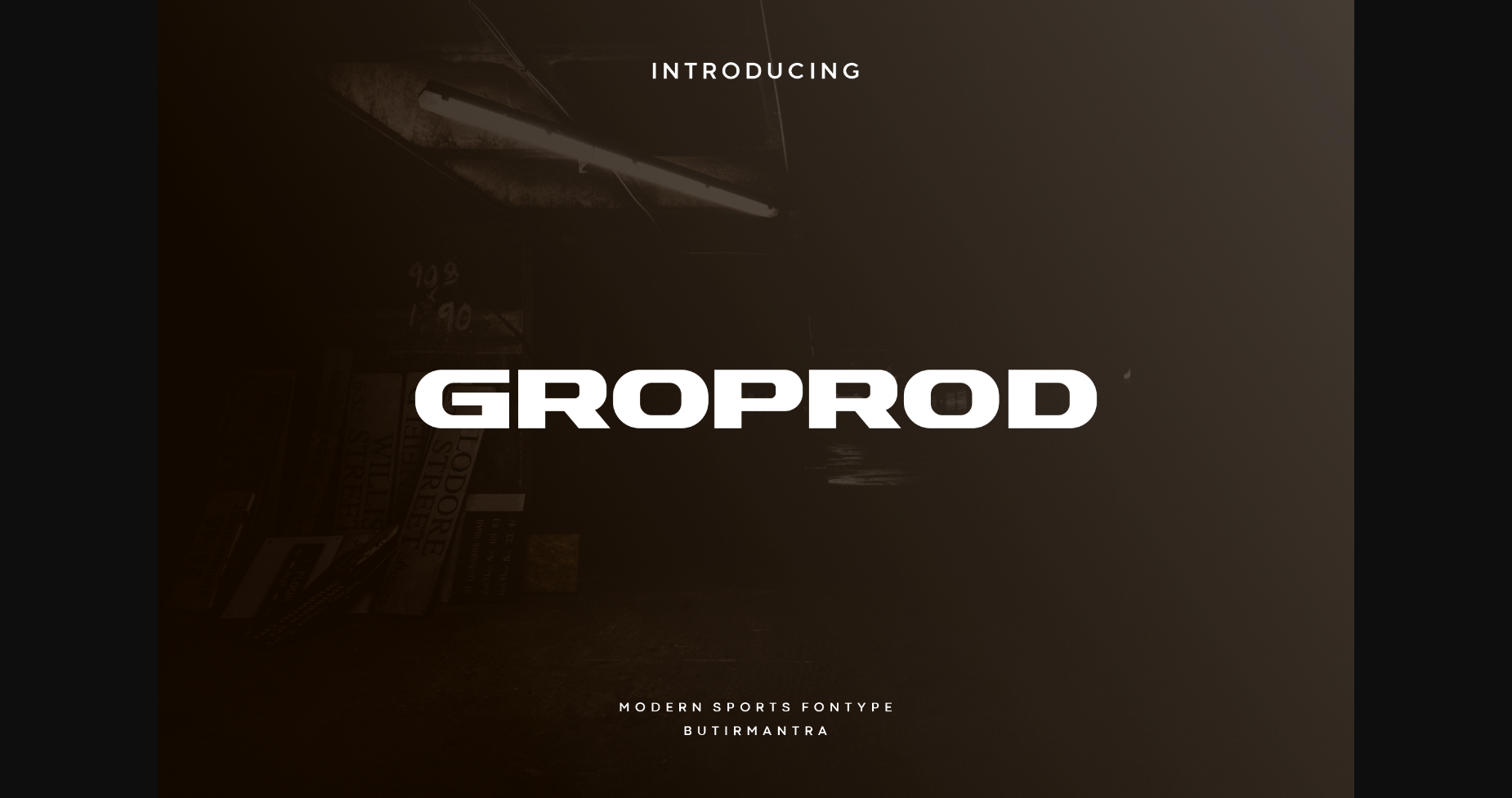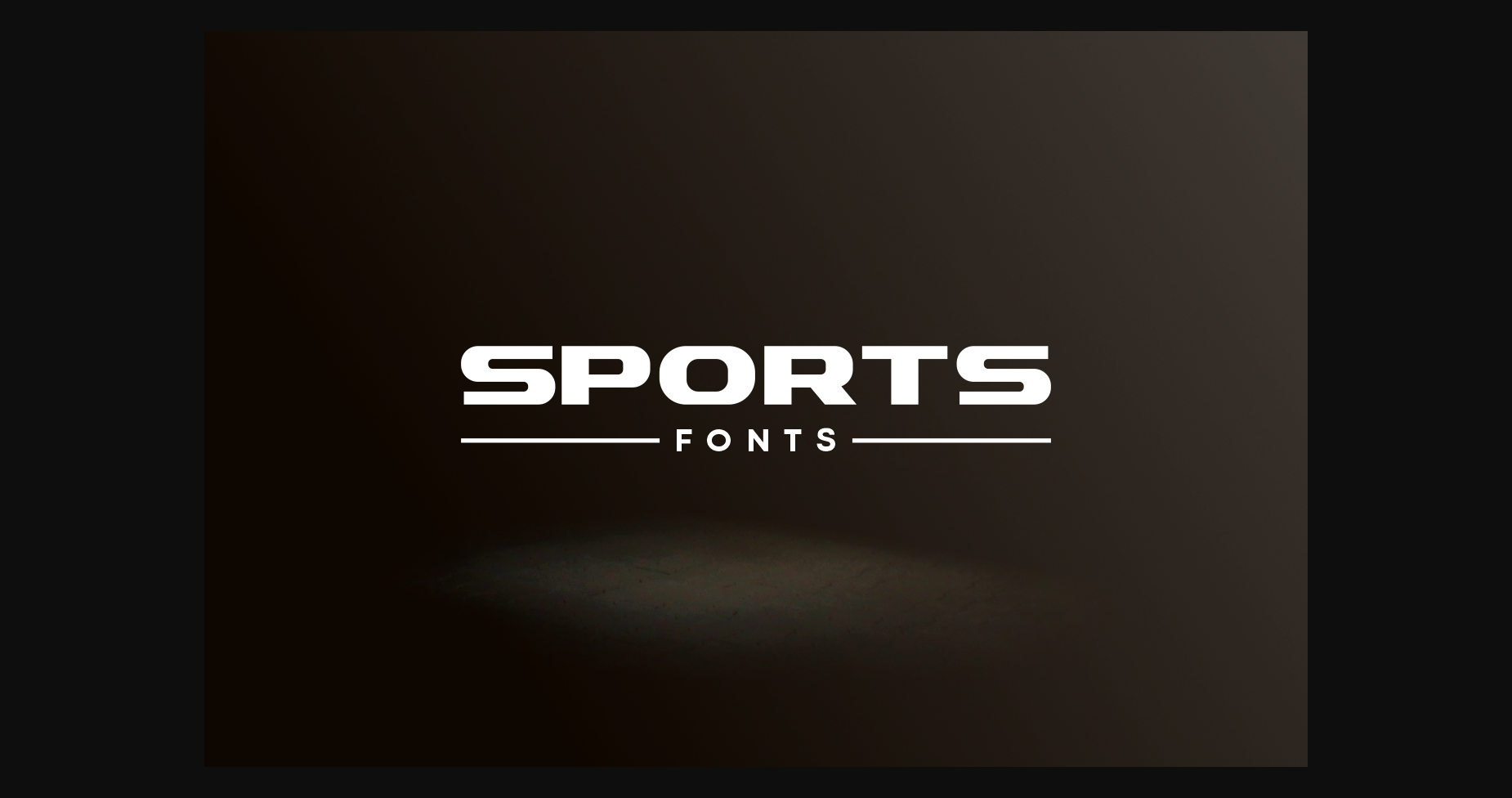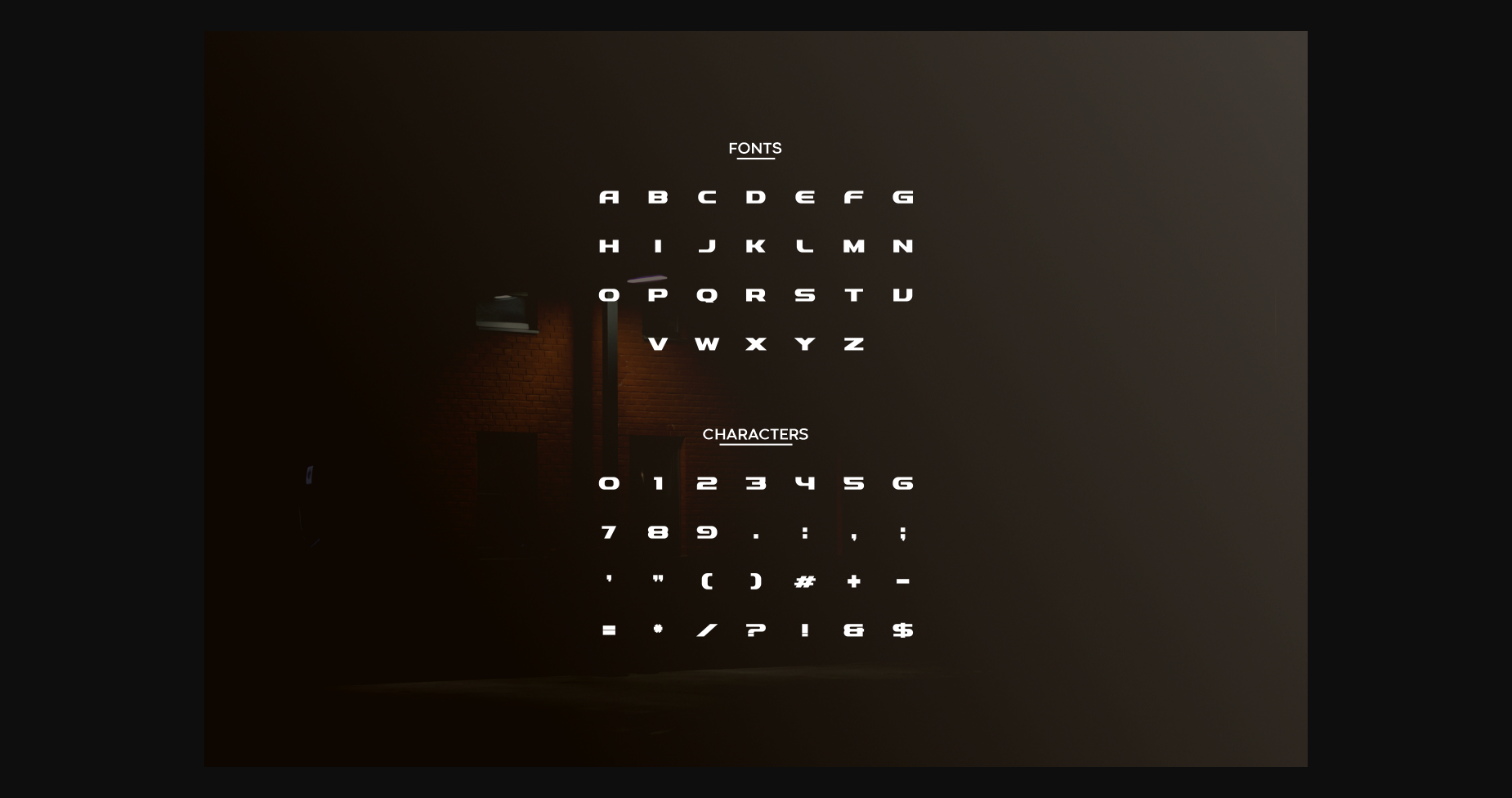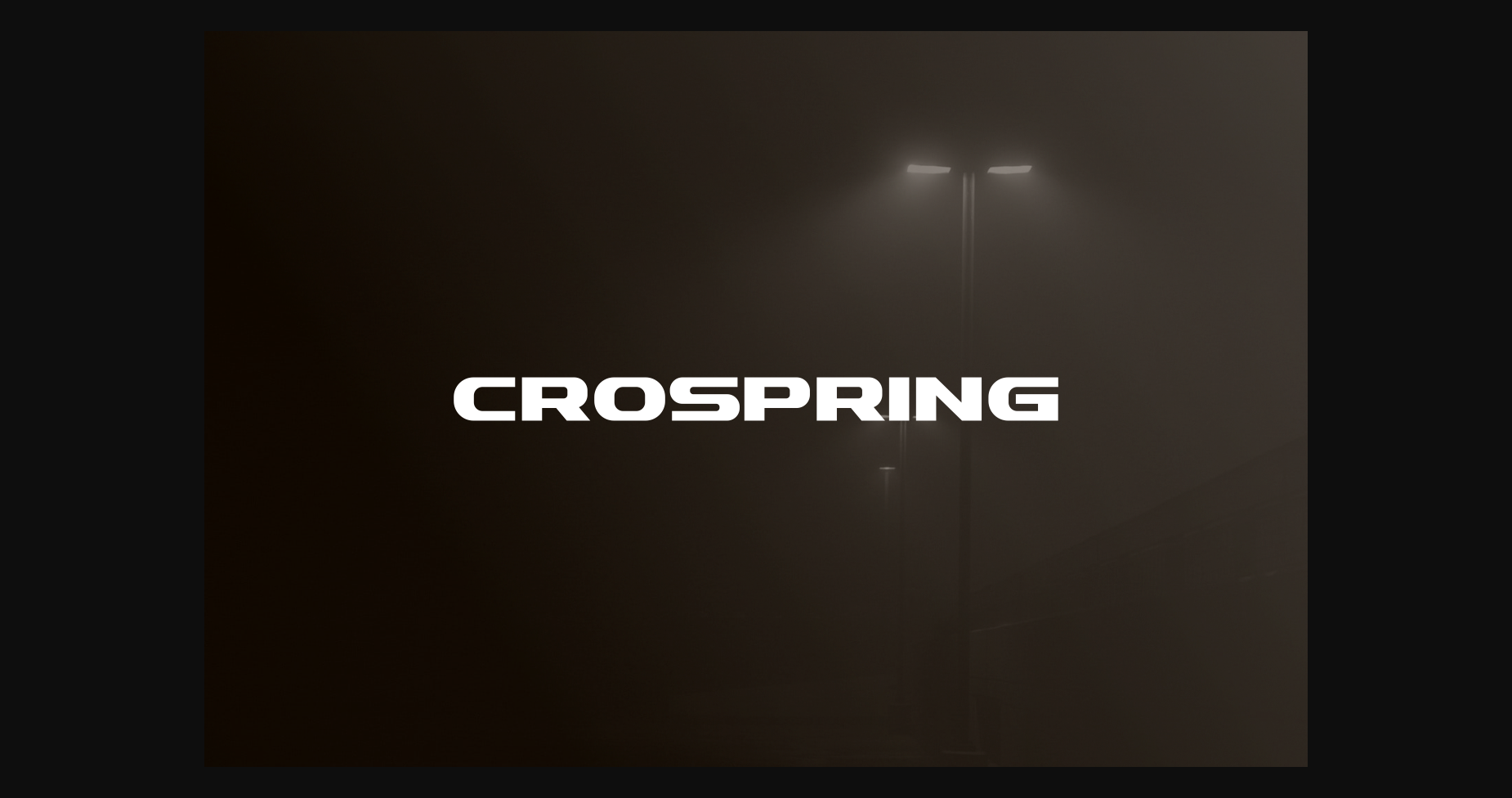
Groprod Font
About Groprod Font
Groprod is a modern, elegant, and futuristic-looking font, with a thinner and contemporary version. This font would be ideal for web design, business cards, or anything else that requires a unique touch.